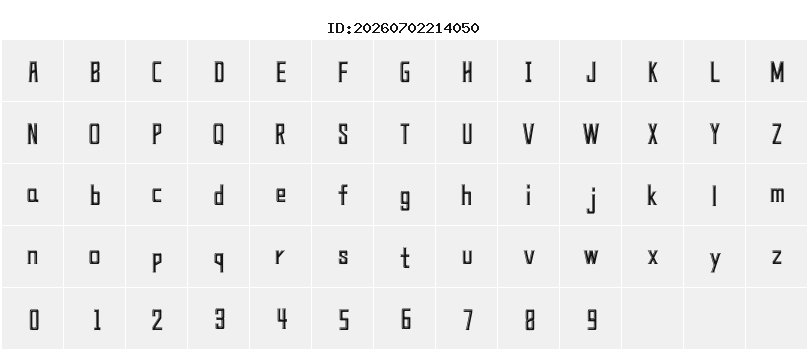
A024-Sounso Victoria Preview
• Font Name: A024-Sounso Victoria
• Full Font Name: A024-Sounso Victoria
• Manufacturer: 上首造字
About A024-Sounso Victoria.ttf
A024-Sounso Victoria.ttf is a modern, elegant sans-serif font designed for ultimate readability and visual harmony. Perfect for branding, headlines, web design, and print materials.